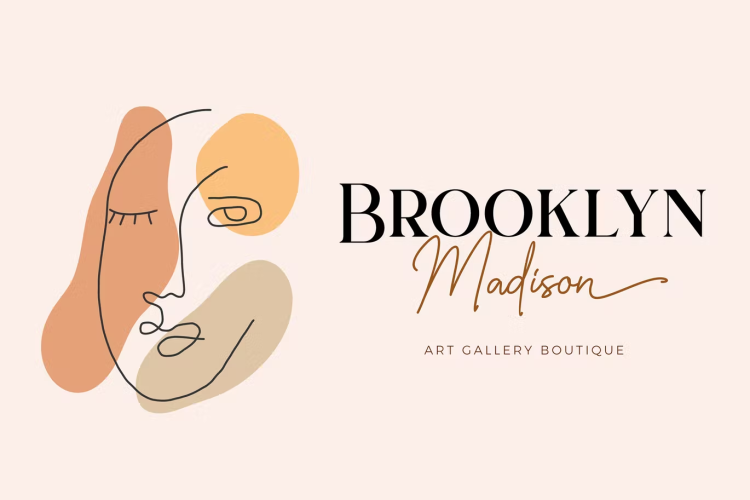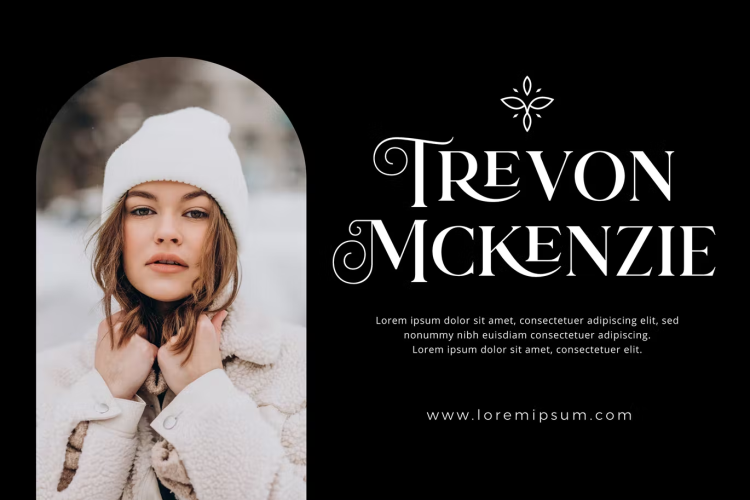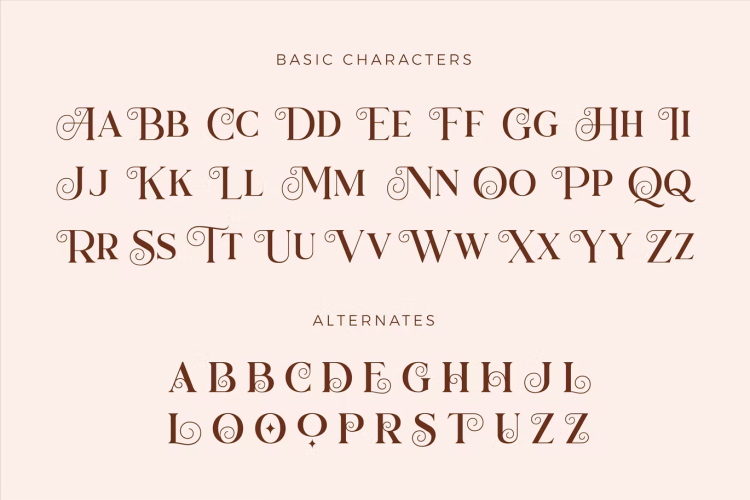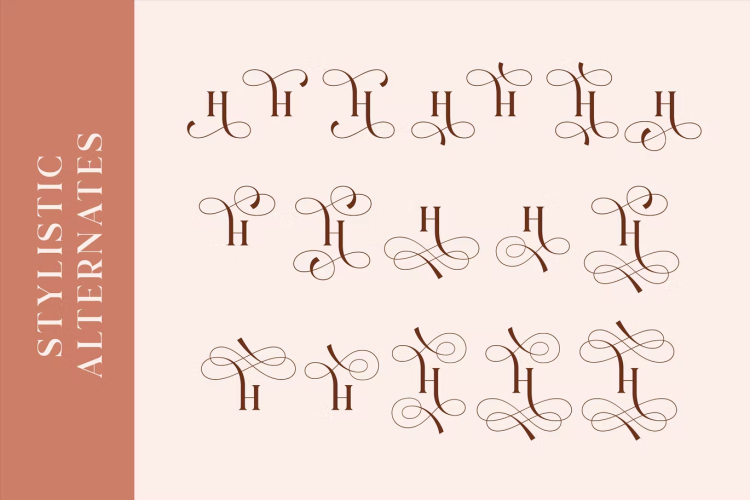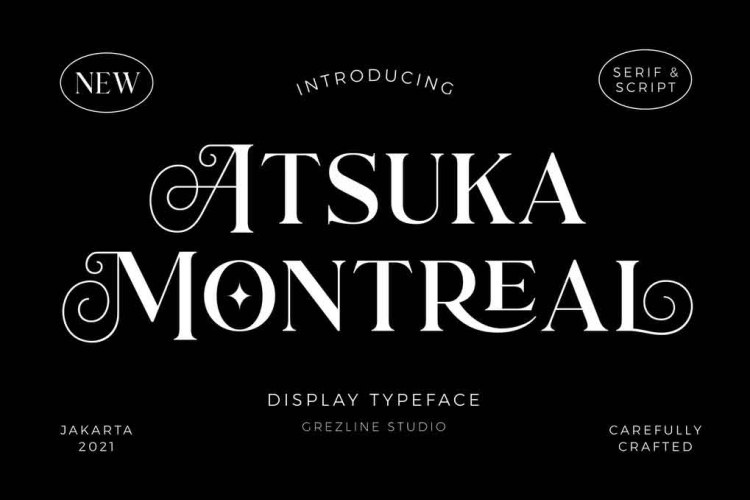
Atsuka Montreal Font
Atsuka Montreal is a display font family with elegance and luxury aesthetic. It’s a perfect use for any fashion design project. This font is accompanied by signature script to make your creation be more appealing and beautiful. Atsuka Montreal font is also usable in a wide range of works such as logos, covers, posters, quotes, product packaging, merchandise, social media and much more!
Where Atsuka Montreal Font works best
Reports, white papers and book interiors hold the eye longer when the text face has real serifs; Atsuka Montreal Font keeps that rhythm without looking old-fashioned.
Food, spirits and cosmetics brands lean on serif wordmarks to suggest age and care. Atsuka Montreal Font gives that signal at wordmark size.
Set Atsuka Montreal Font for the body of an award or a diploma and keep the recipient name in a script; the pairing is what makes a document feel official.
What kind of work does Atsuka Montreal Font suit?
It sits in the Serif Fonts group and reads as branding, display, elegant, luxury. That makes it a candidate wherever those qualities help: headings, packaging, social graphics and brand work. Set it at the size you plan to use before deciding.